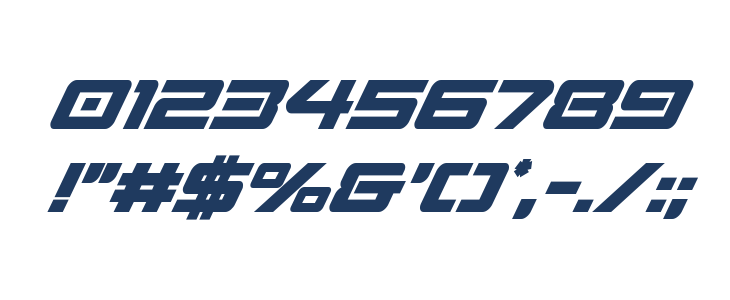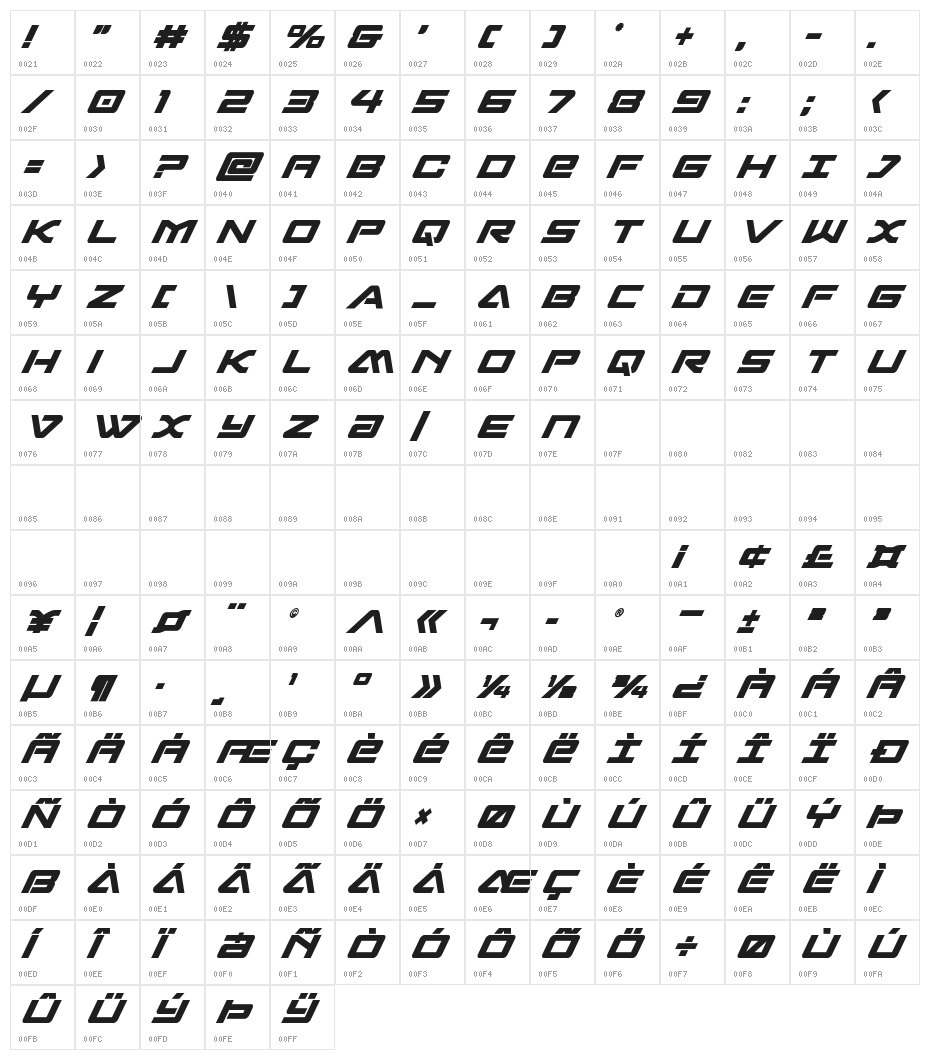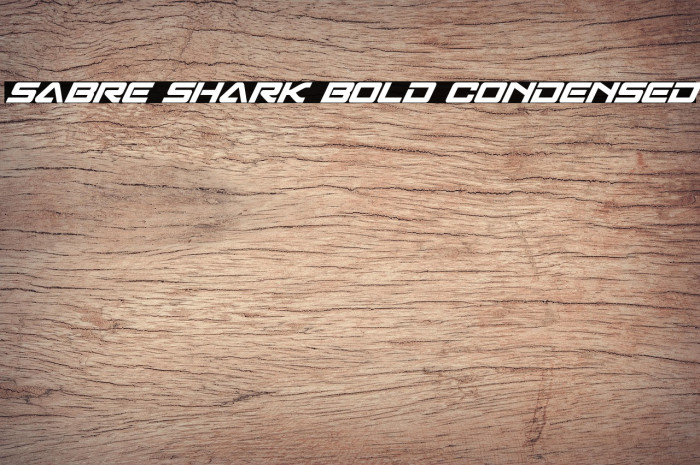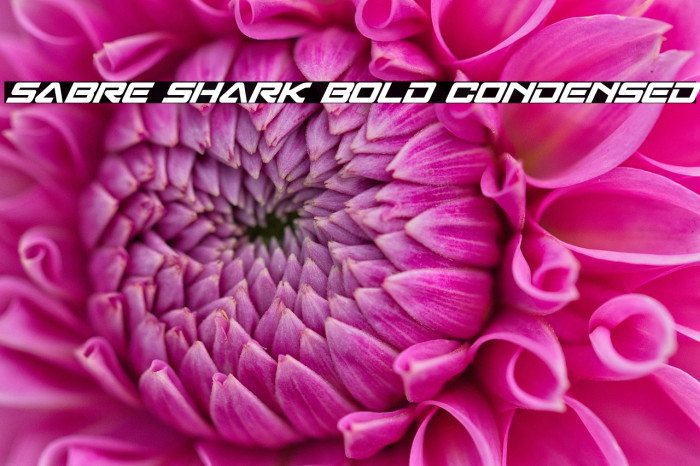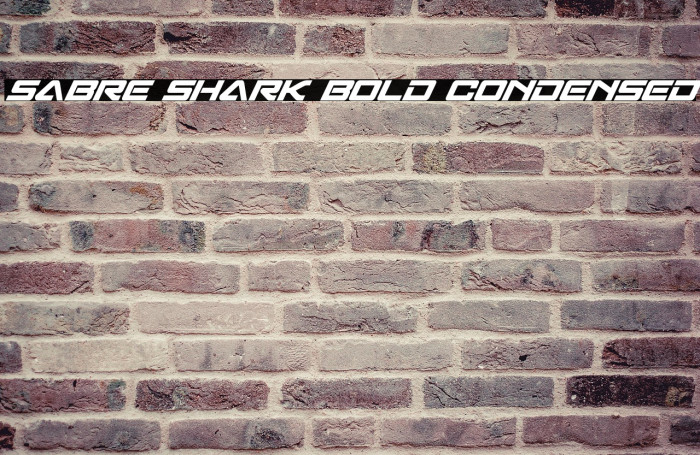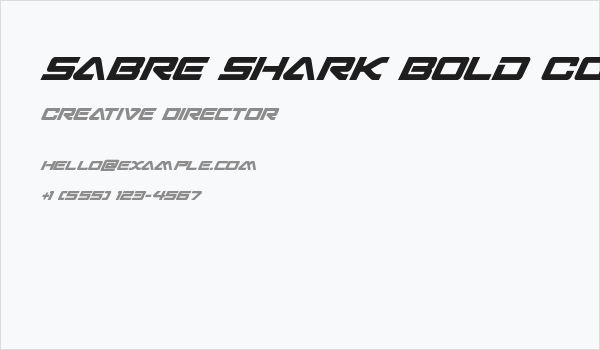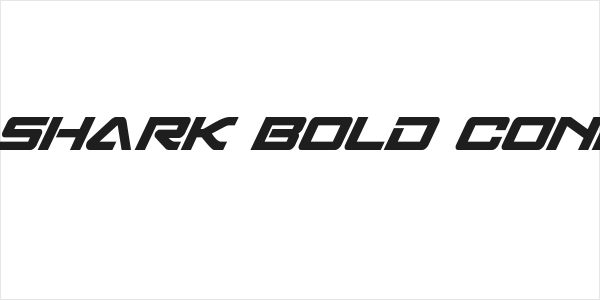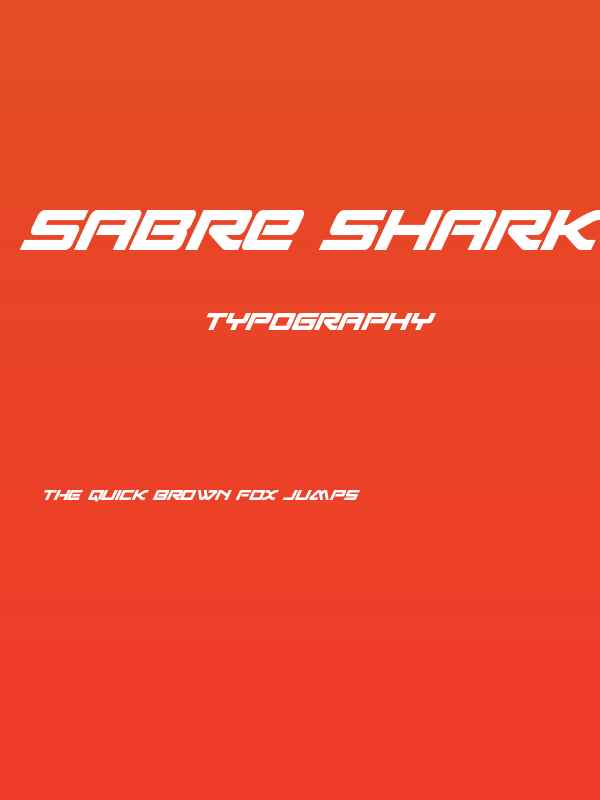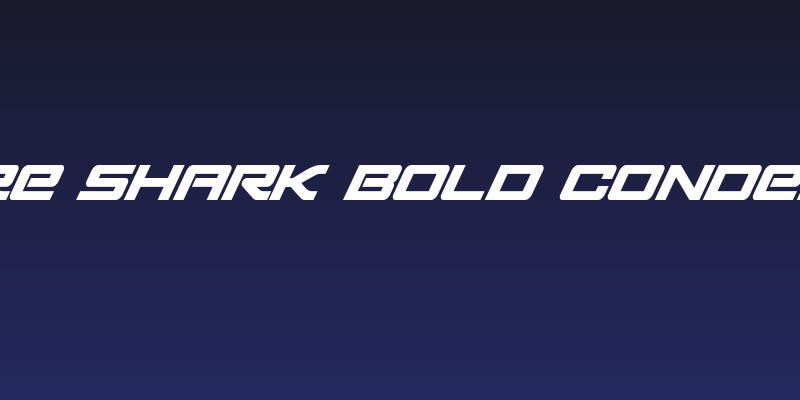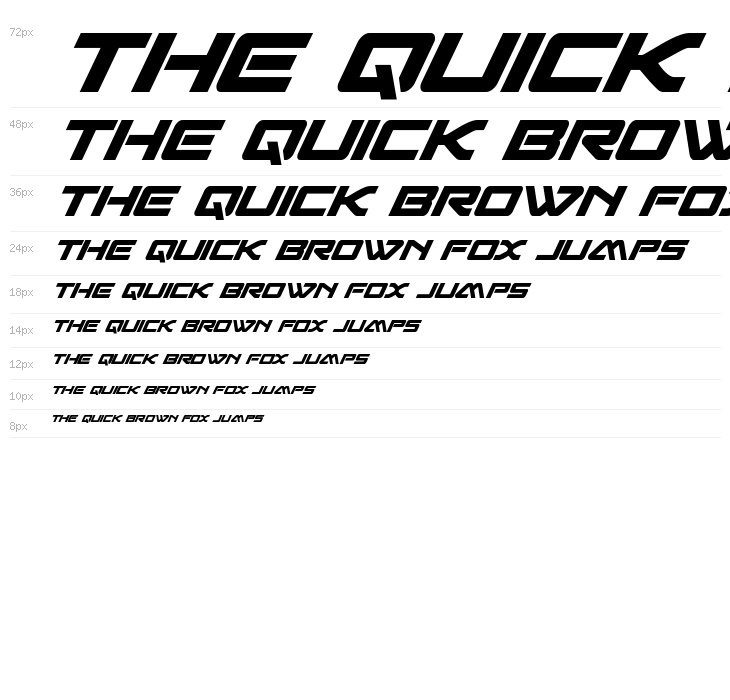
Sabre Shark Bold Condensed Font
Sabre Shark Bold Condensed Description
This font features a bold and condensed style with a futuristic and dynamic appearance. The characters are angular and slanted, giving a sense of motion and speed. The uppercase letters are particularly striking, with sharp edges and a geometric structure. The numbers and special characters maintain this bold and angular design, ensuring consistency across all glyphs. The overall look is modern and assertive, making it suitable for attention-grabbing designs.